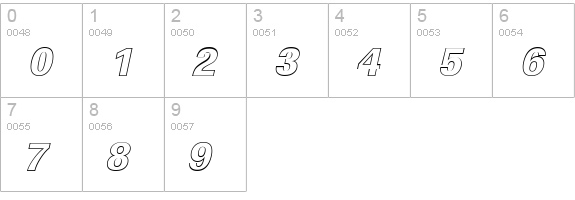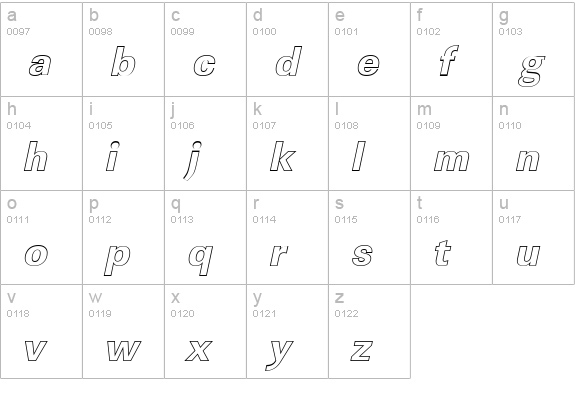
LinearOu-Xbold-Italic is a distinctive, italic variant in the LinearOu typeface family \xE2\x80\x94 well suited to design and typography projects.
Introducing LinearOu-Xbold-Italic font, a modern and sleek typeface that adds a touch of sophistication to any design project. This elegant font features clean lines and bold styling, making it perfect for branding, logos, headlines, and more. LinearOu-Xbold-Italic font is versatile and eye-catching, making it a great choice for both digital and print applications. Its unique italicized style adds a dynamic and contemporary feel to any text it is applied to. Best of all, LinearOu-Xbold-Italic font is available for free download at FontsMarket.com. This means you can easily access this stylish font and incorporate it into your projects without any cost. Don't miss out on this opportunity to enhance your designs with the timeless appeal of LinearOu-Xbold-Italic font. Download it today and elevate your creative work to the next level.